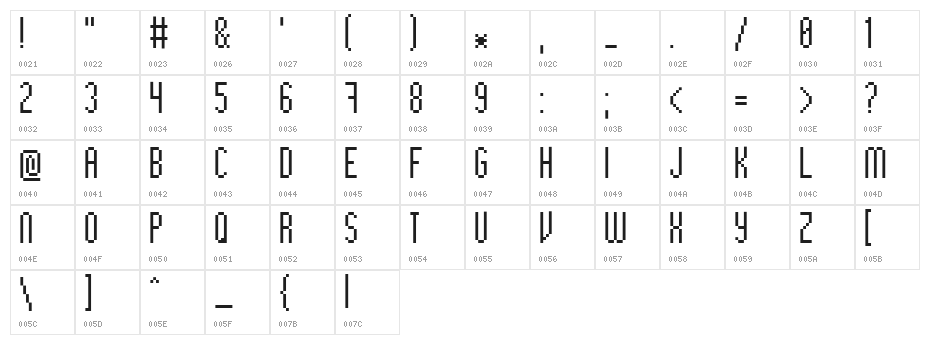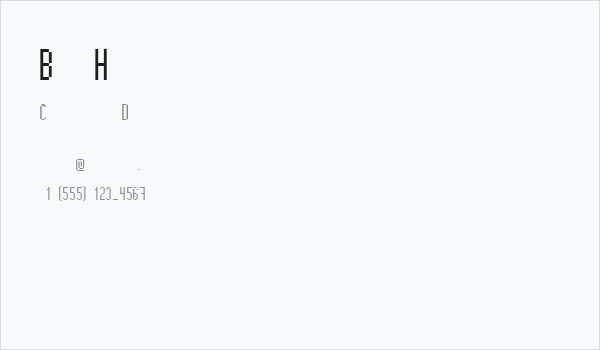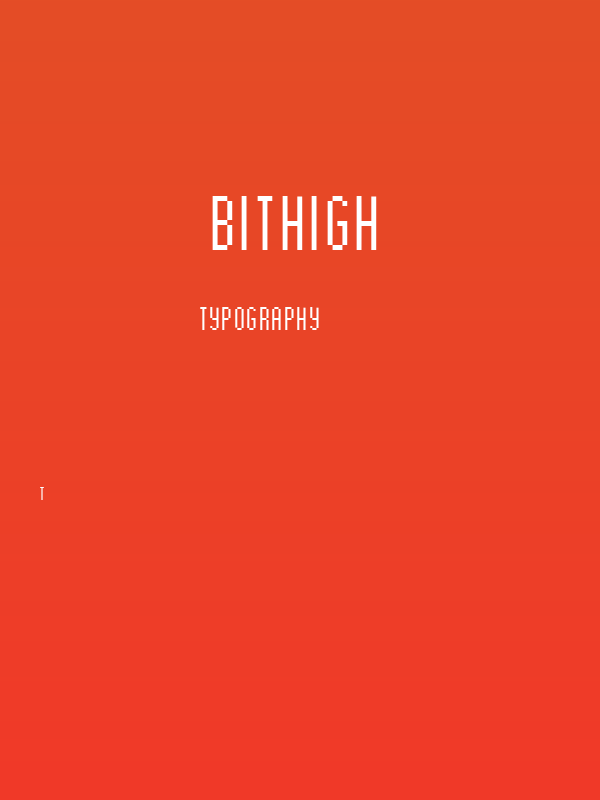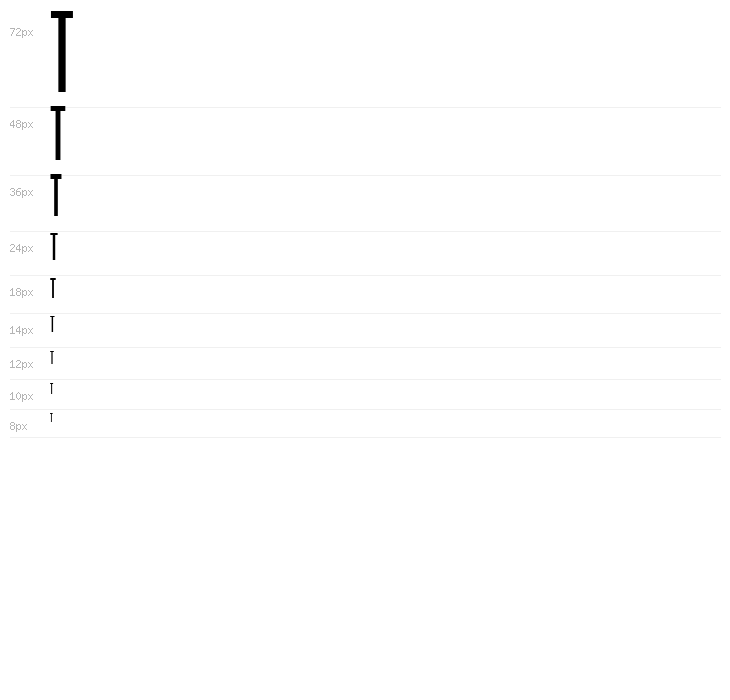
BitHigh Font
BitHigh Description
This font features a pixelated, blocky design reminiscent of early digital displays and retro video games. Each character is constructed with a grid-like precision, giving it a distinctly digital aesthetic. The uppercase letters are uniform in height and width, creating a cohesive and structured appearance. The numerals and special characters maintain this consistency, ensuring readability and a strong visual impact. The font's simplicity and geometric form make it ideal for projects that require a nostalgic or tech-inspired look.
| Overall Style | Retro, Digital |
| Use Case | Headlines, Logos, Digital Art |
| Proposed Projects | Ideal for retro video game designs, digital-themed posters, tech branding, and nostalgic digital art. |